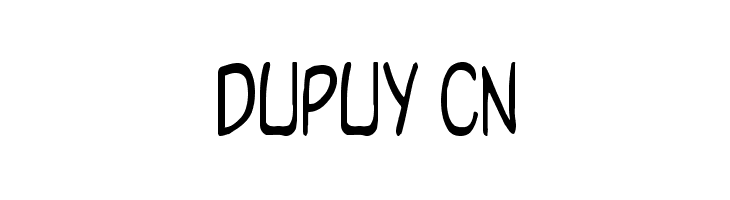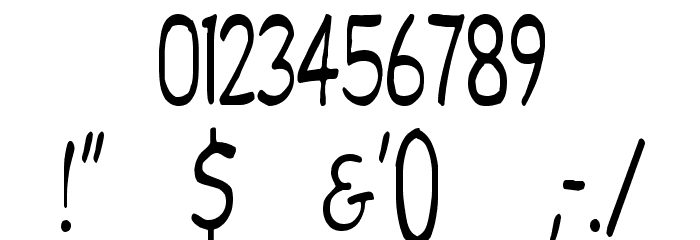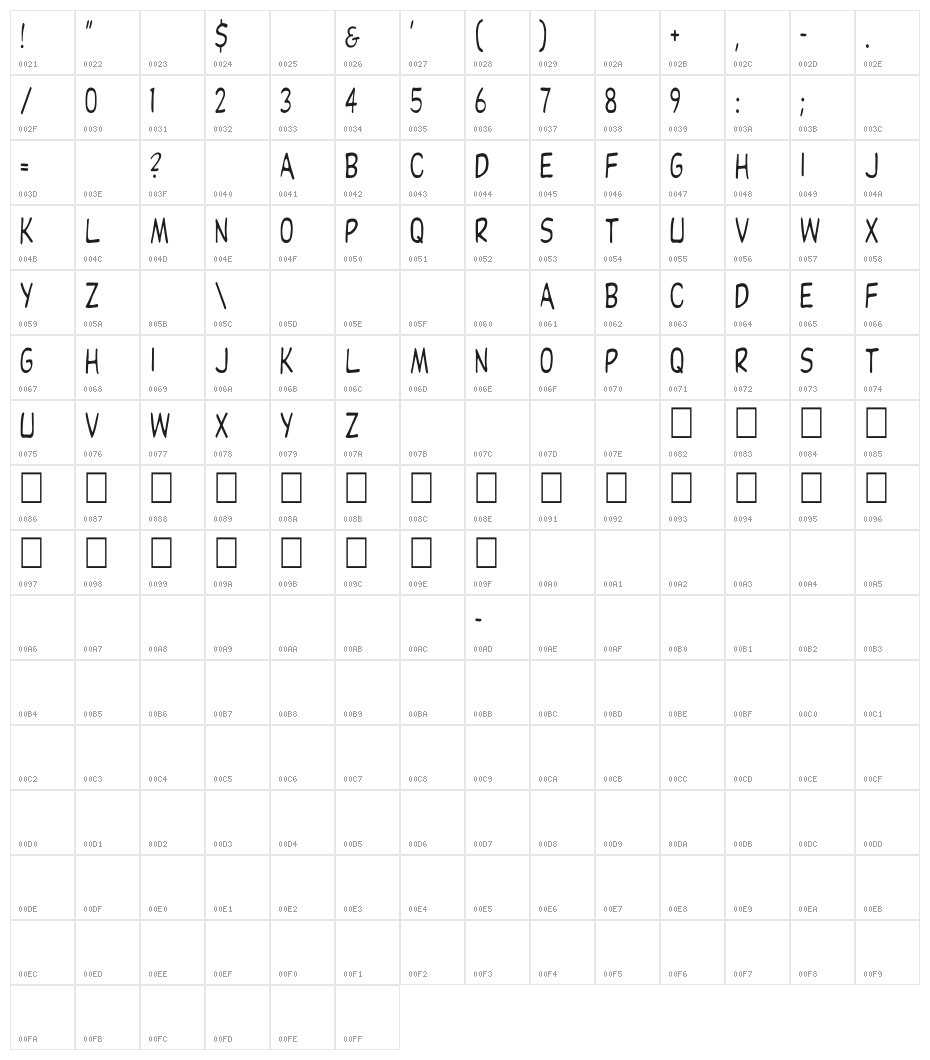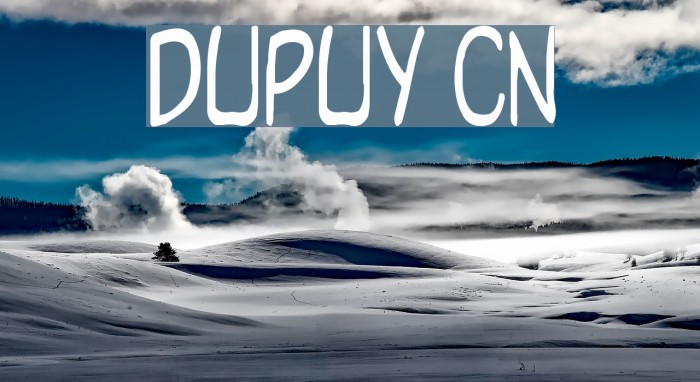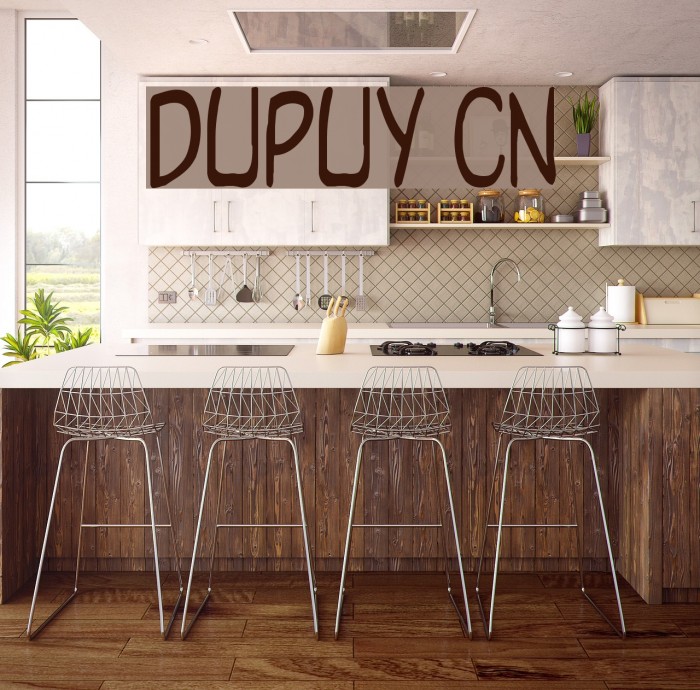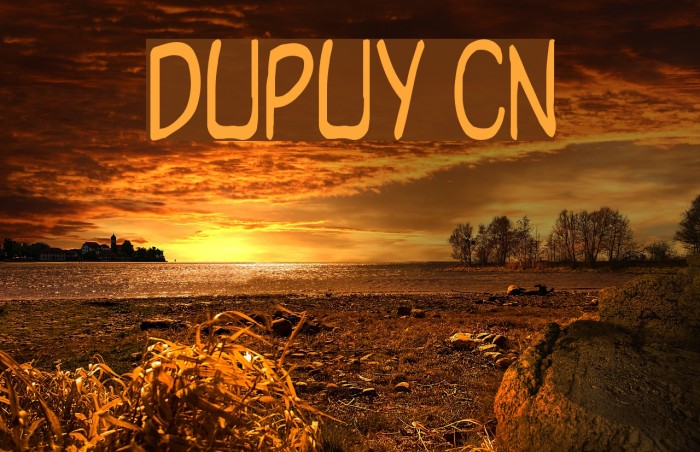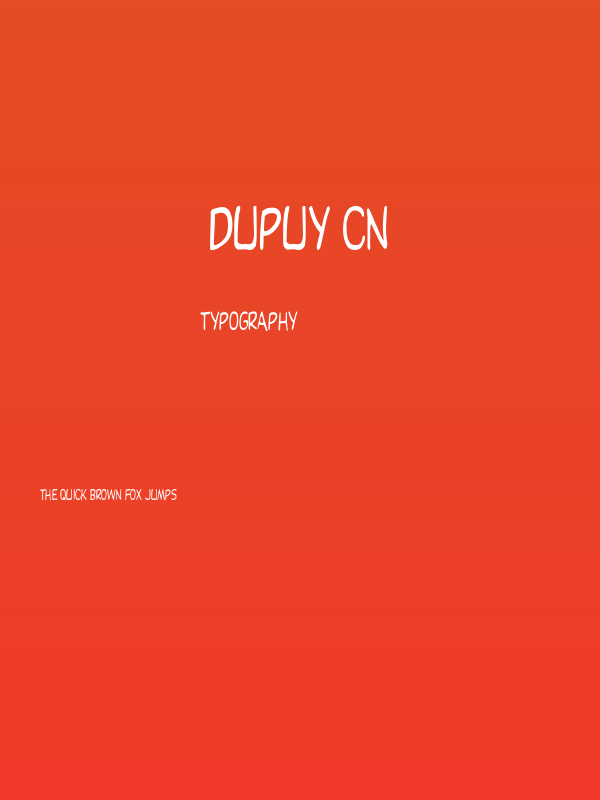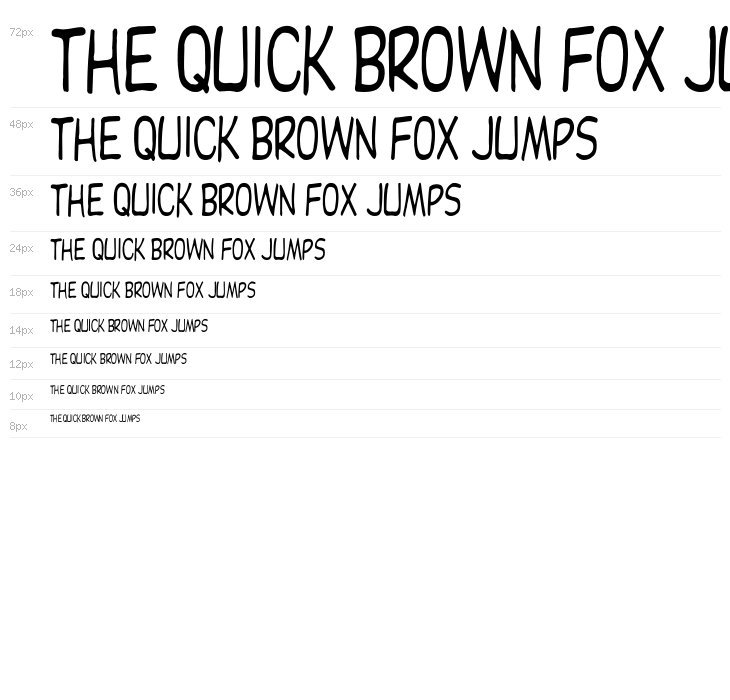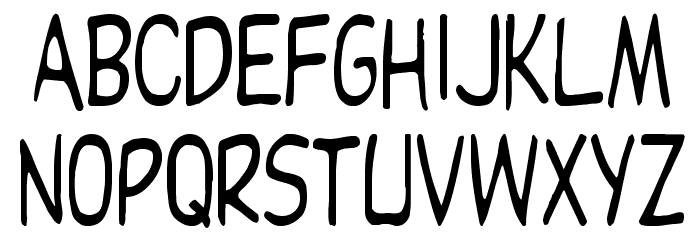
Dupuy Cn Font
Dupuy Cn Description
This font features a playful and informal handwritten style, characterized by its irregular and slightly uneven strokes. The letters are bold and have a casual, friendly appearance, making them suitable for projects that require a personal touch. The uppercase and lowercase letters maintain a consistent style, with rounded edges and a slight slant that adds to the font's approachable feel. The numbers and special characters are designed to match the overall aesthetic, ensuring a cohesive look across all text elements.
| Use Case | Headlines, Informal text, Branding |
| Proposed Projects | Ideal for children's books, greeting cards, informal invitations, and playful branding projects. |